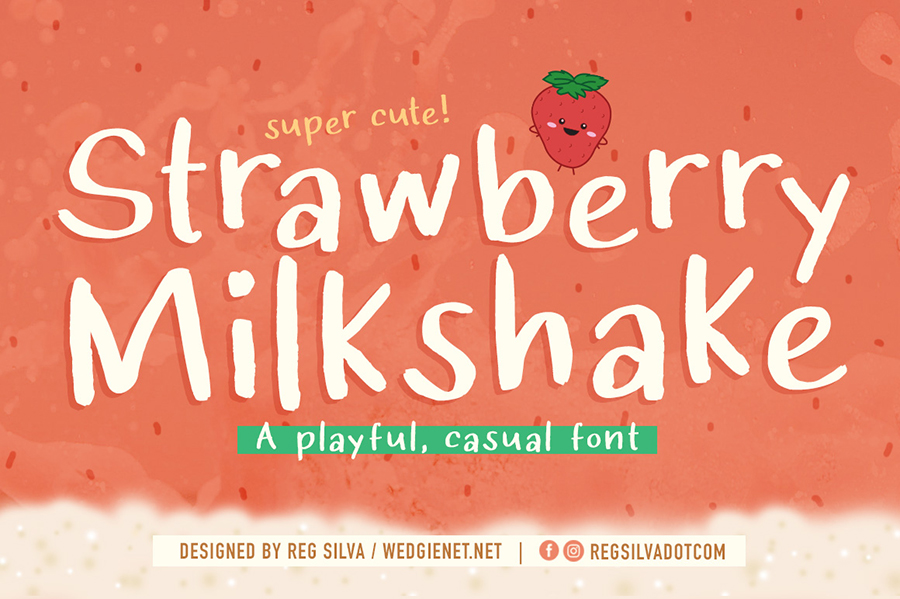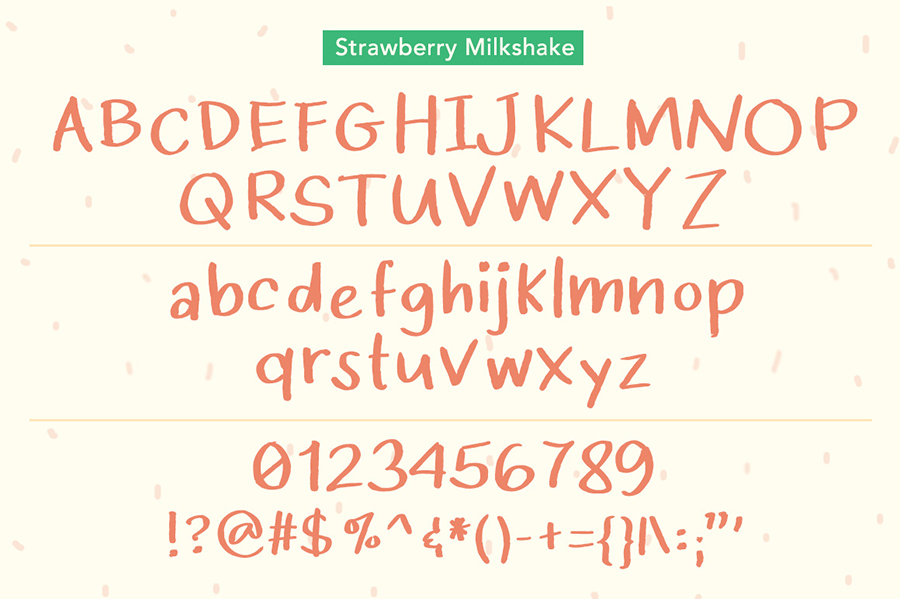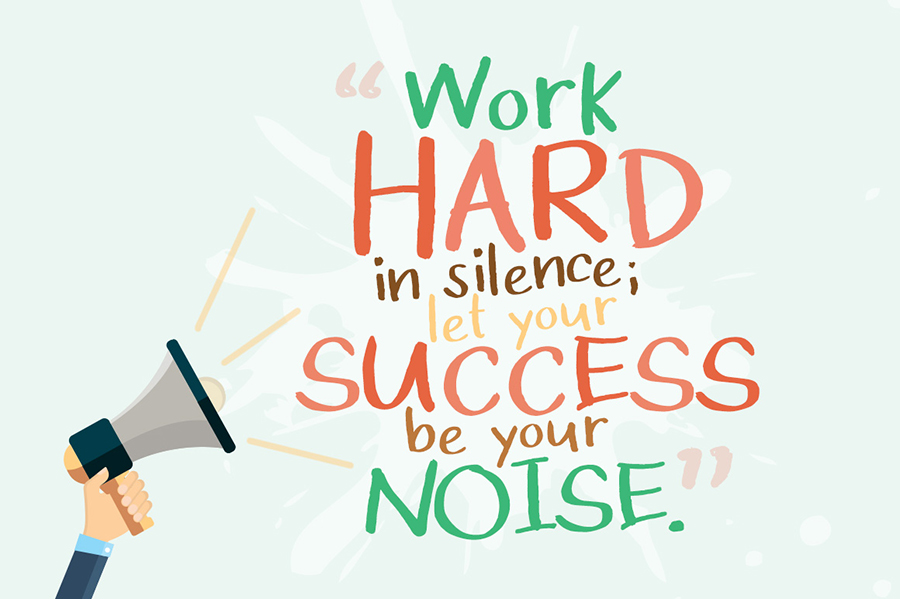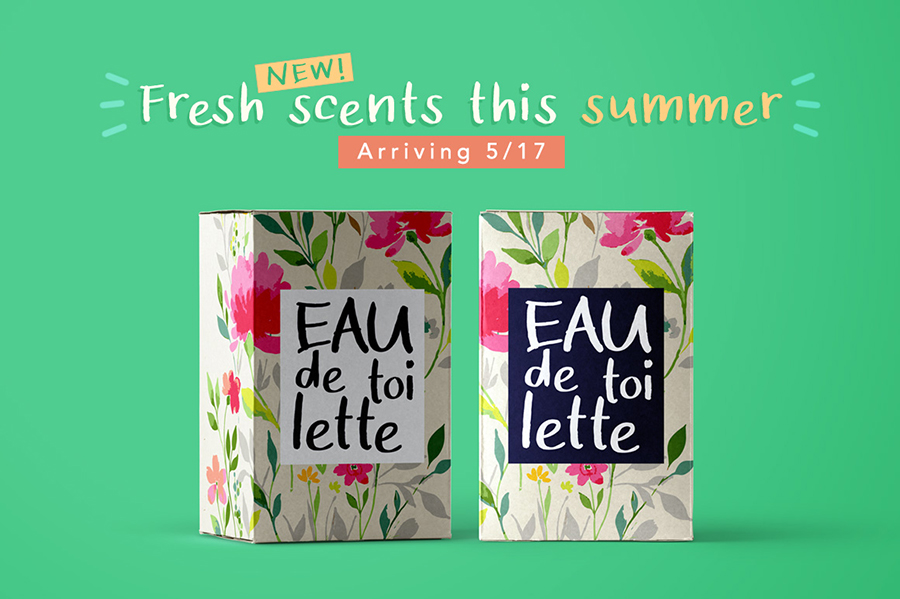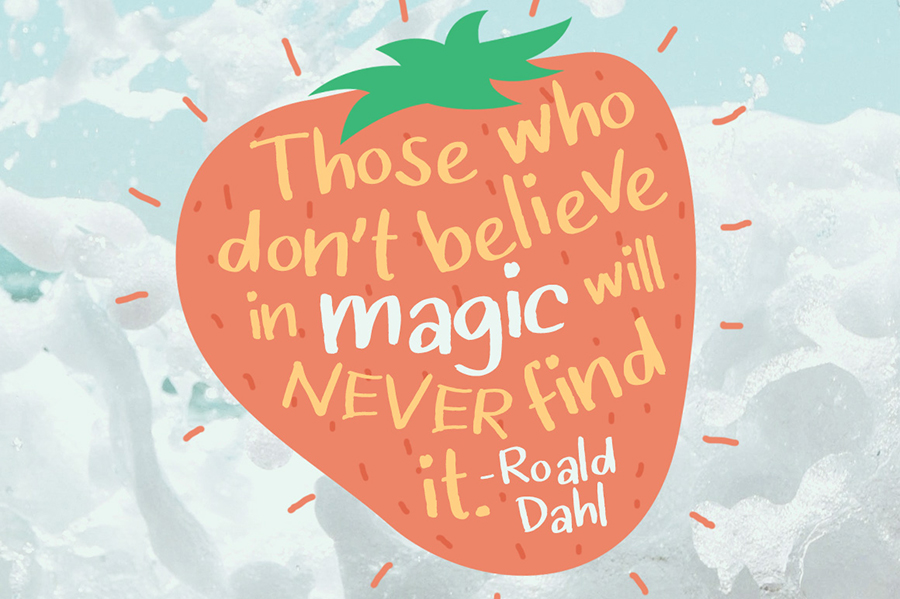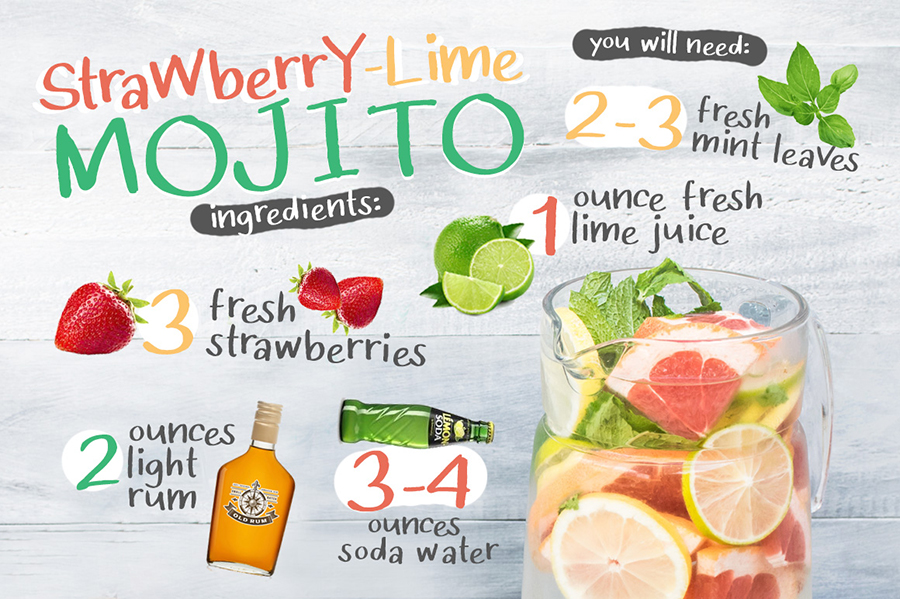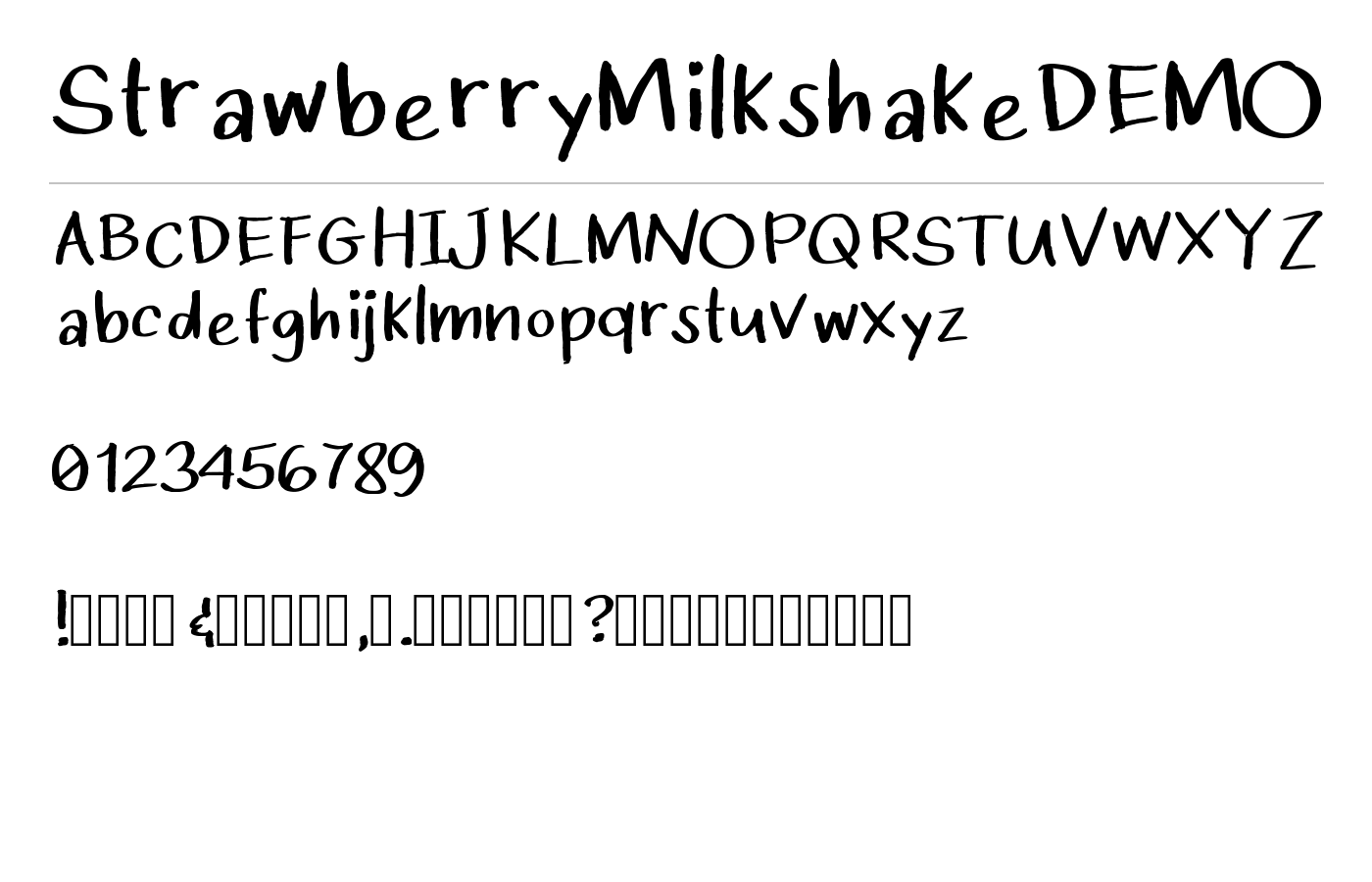
Strawberry Milkshake Font Demo
Strawberry Milkshake Font Demo is a cute, playful font that looks as if it was drawn with a marker. It has a dynamic baseline that gives you bouncy and fun letters. Hence, the font will give the right handwritten and energetic yet casual vibe to your design projects. You can use it for title, headings, logo font, branding and prints as well.